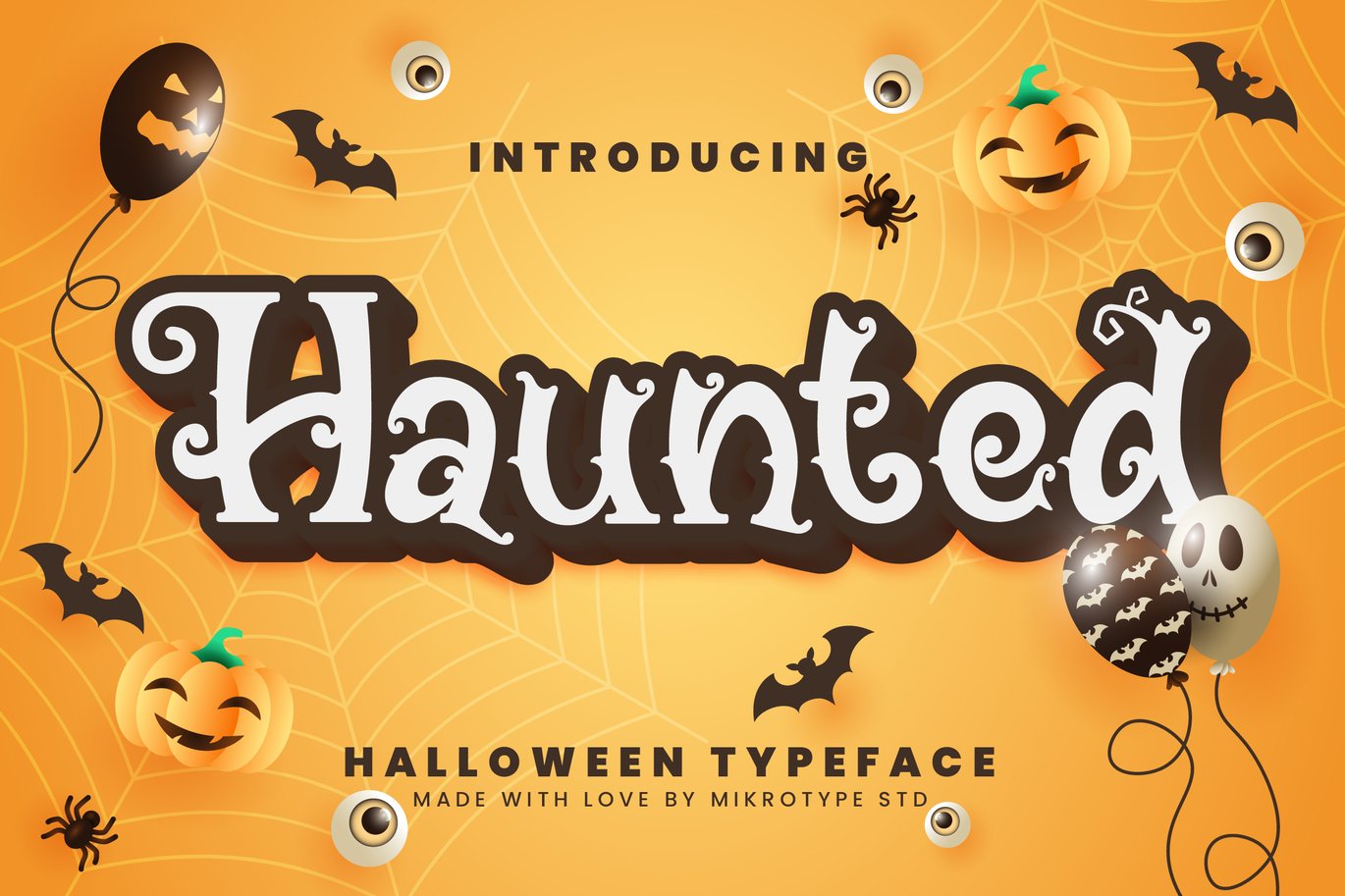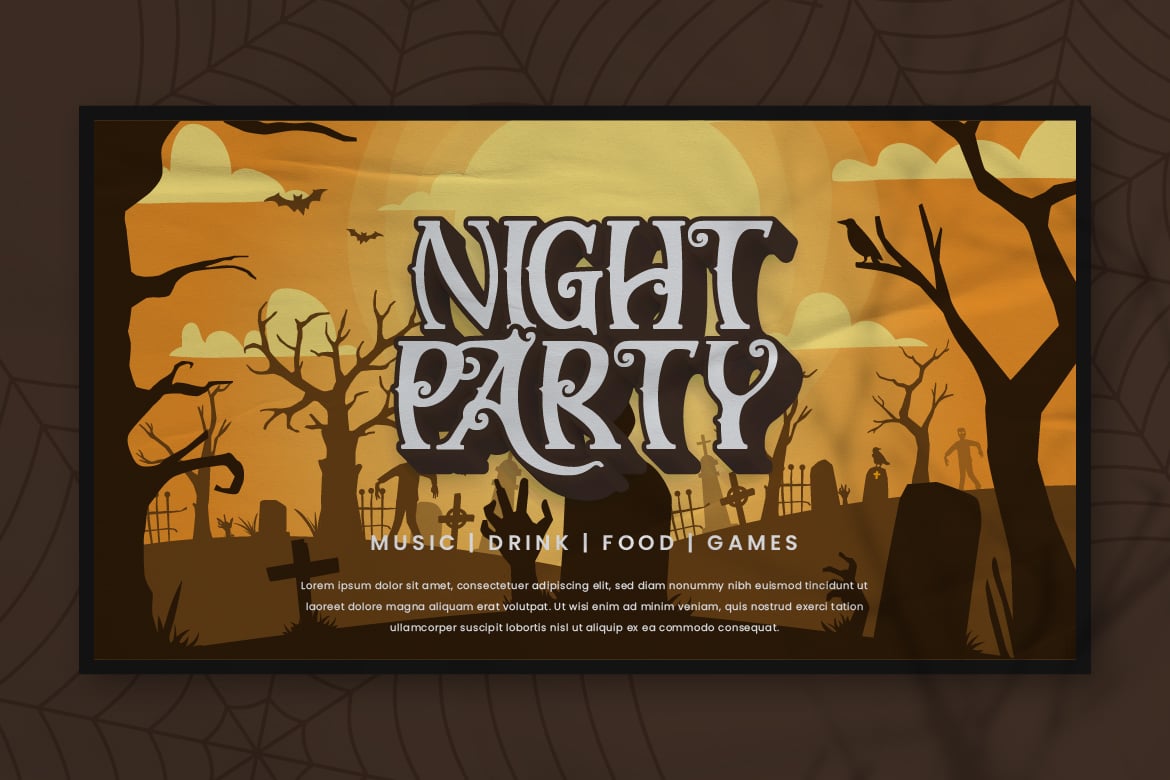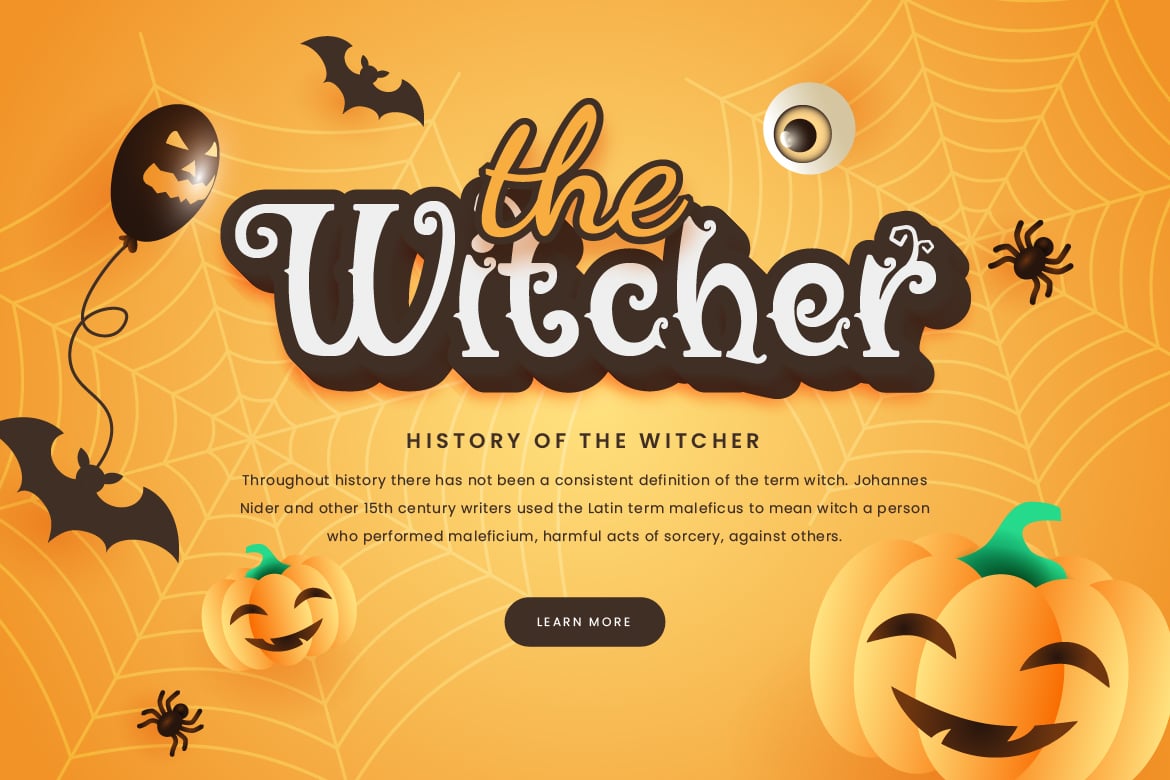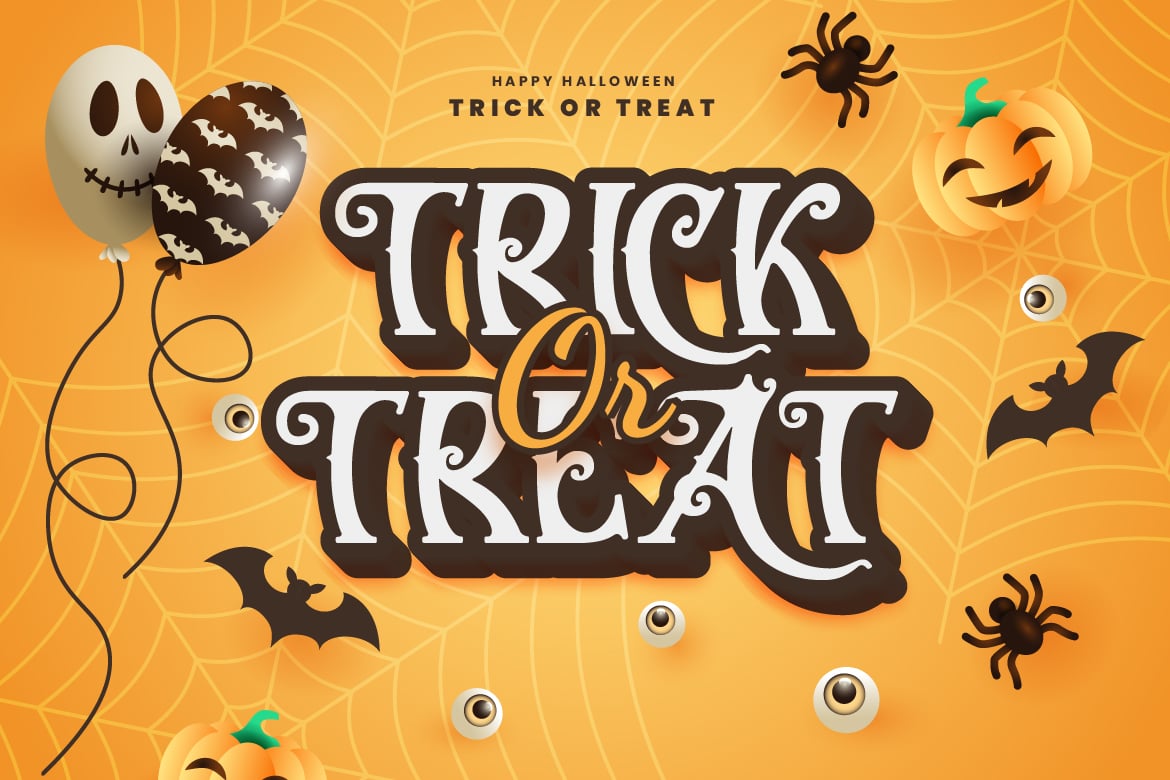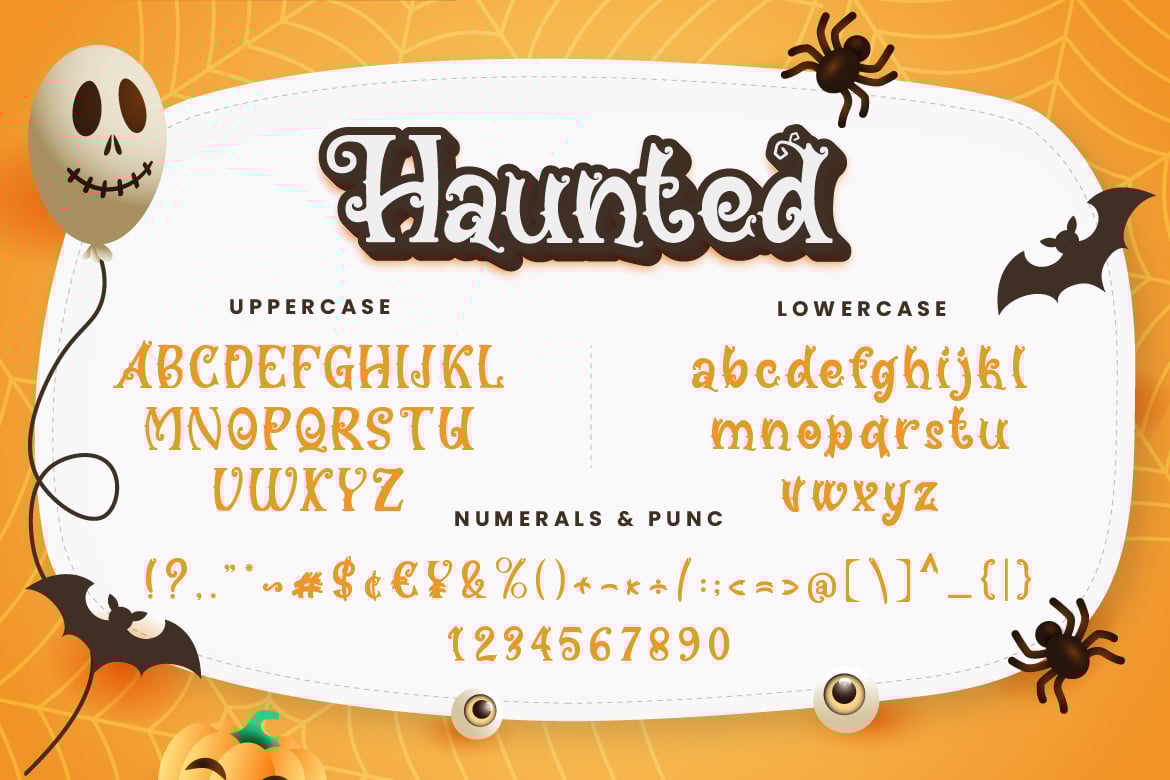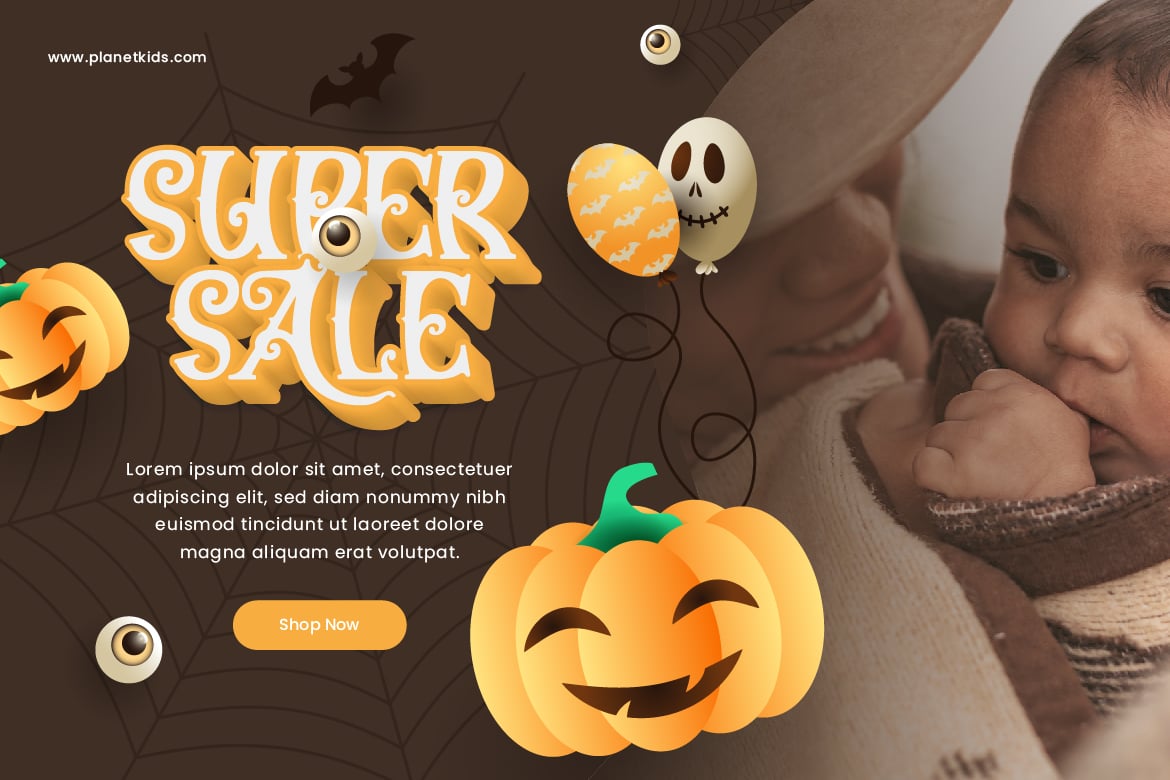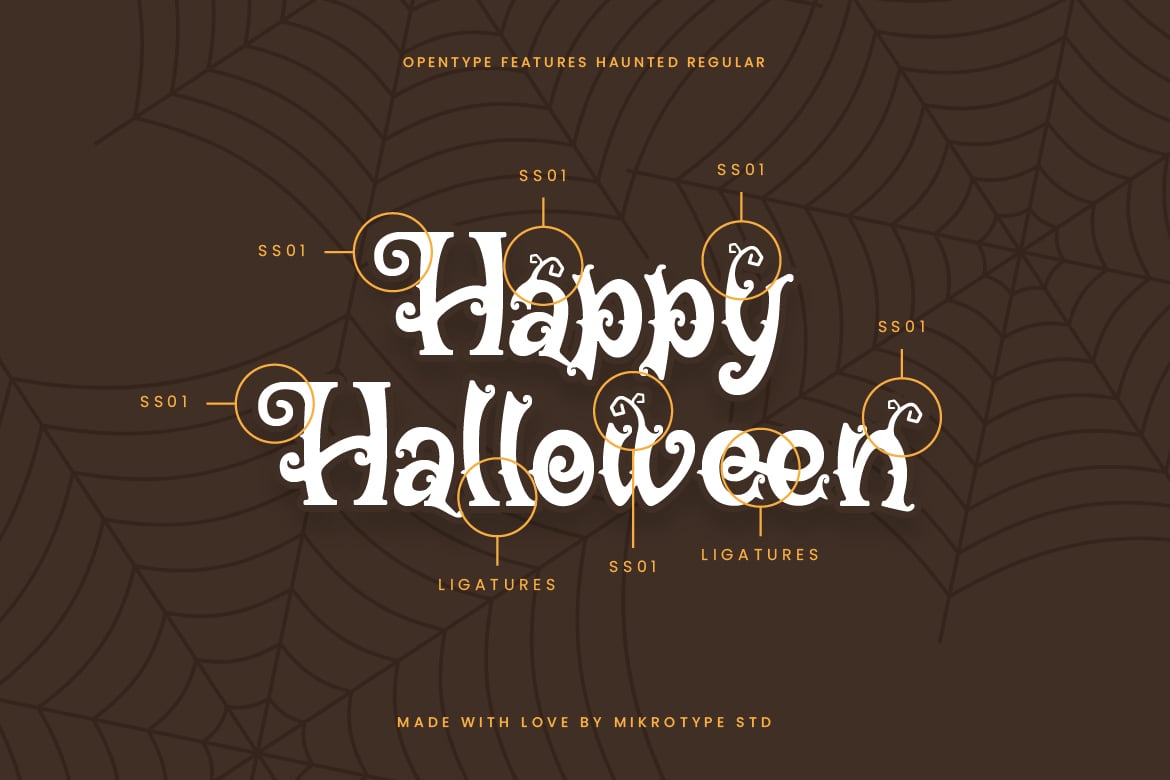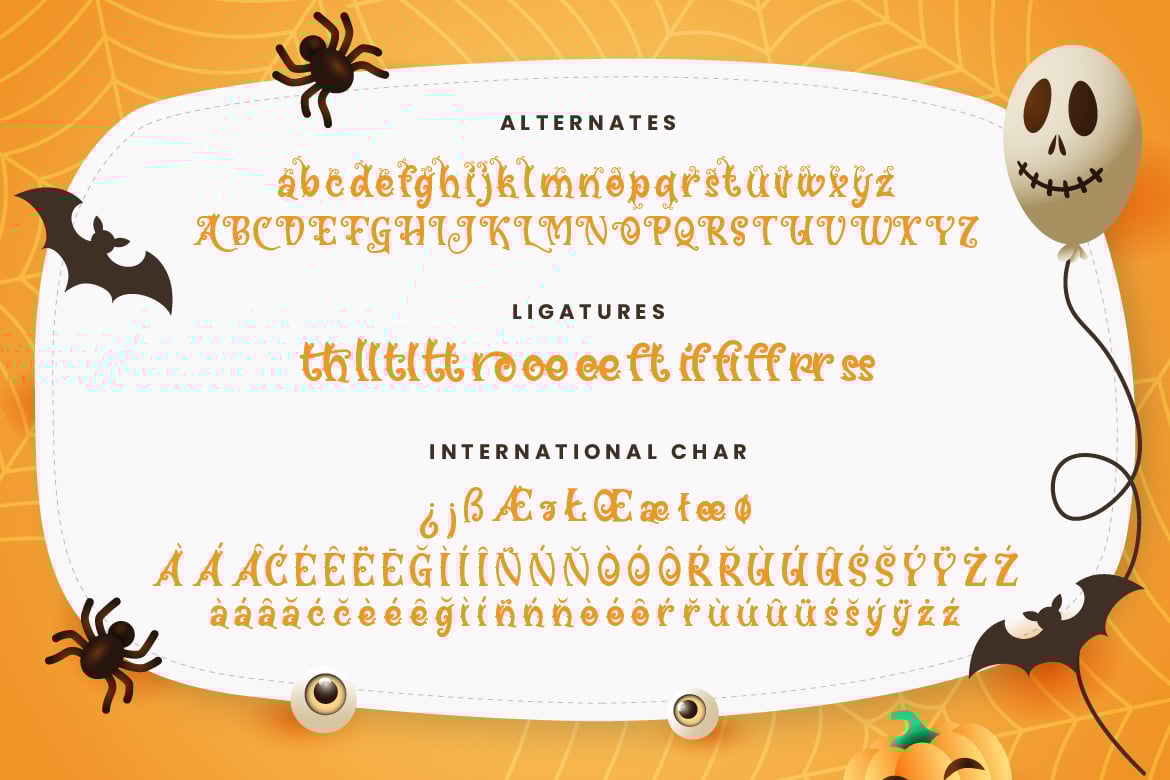
Haunted Halloween Typeface
Introducing Haunted – A Halloween typeface that is specially made to produce unique letter shapes. With its curly shape, it sets this font apart from the rest, making all your big projects look absolutely stunning. There are 13 types of ligatures and 52 types of alternatives in this font. The font is perfect for for movie title, logo, blogging, brand identity, book title, social media, branding, wedding invites, cards or simply use it in your next design project and suitable to use for many occasion.
- Standard Characters
- Numerals
- Swashes
- Multilingual Characters support for;Afrikaans, Albanian, Czech, Danish, Dutch, English, Estonian, Finnish, French, Hungarian, Italian, Latvian, Lithuanian, Norwegian, Polish, Portugese, Slovak, Slovenian, Spanisch, Swedish, Turkish.